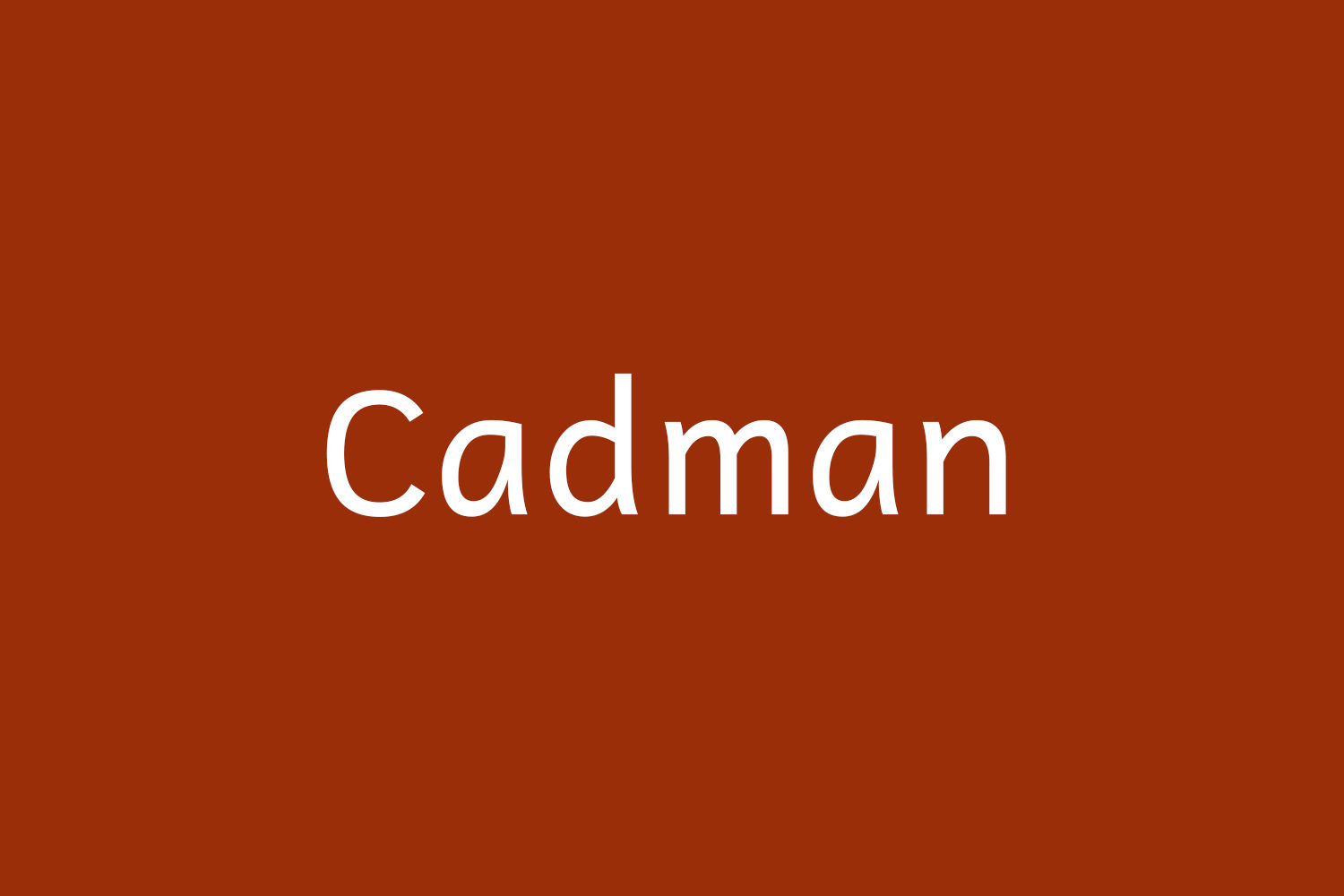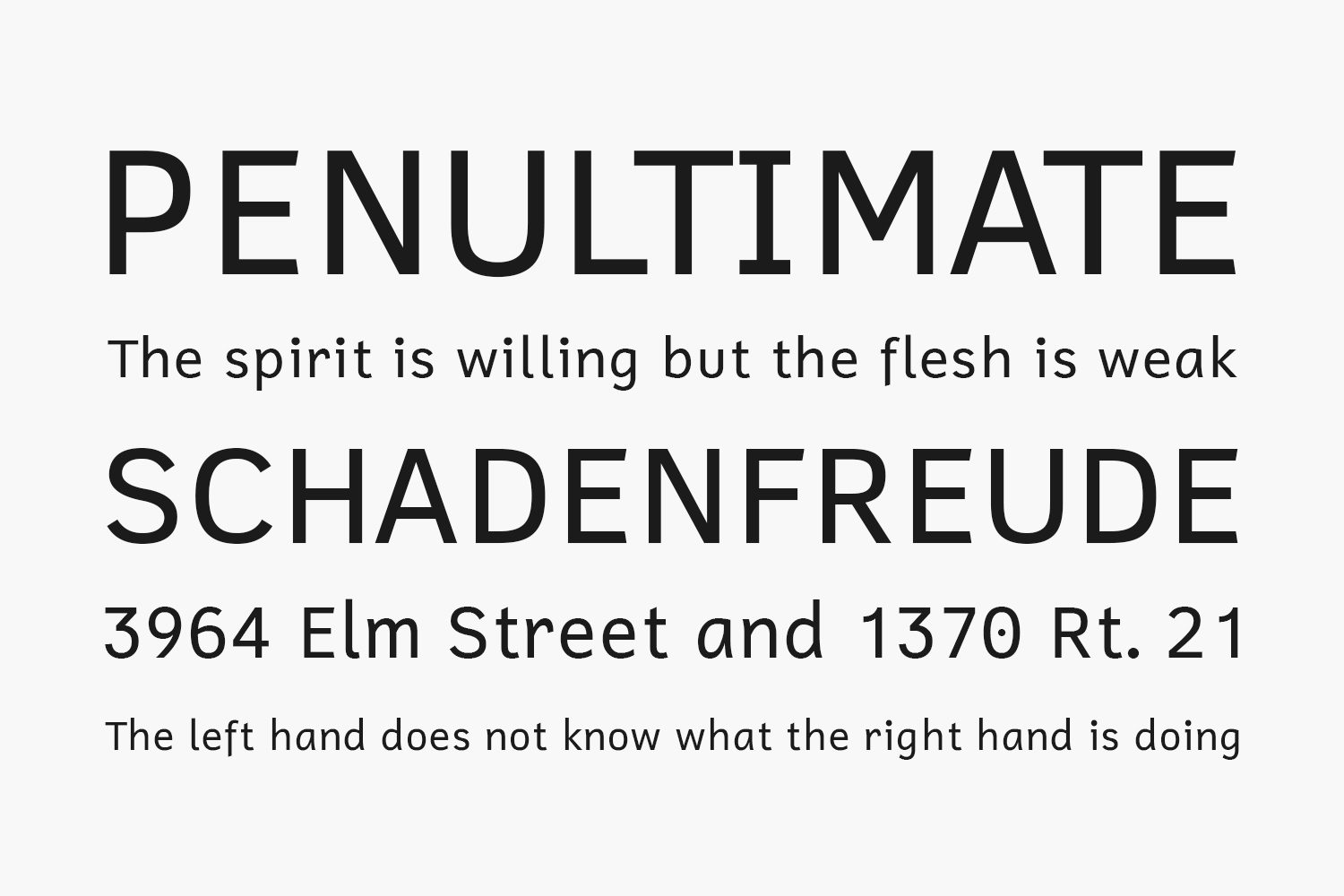
Cadman Free Font Family has been designed to be as legible as possible. There is a lot of opinion on the Internet about which fonts are suitable for dyslexic people and much of it is contradictory. This is only to be expected, people are different from one another and what is suitable for one is not suitable for all.
Designed by Paul Miller